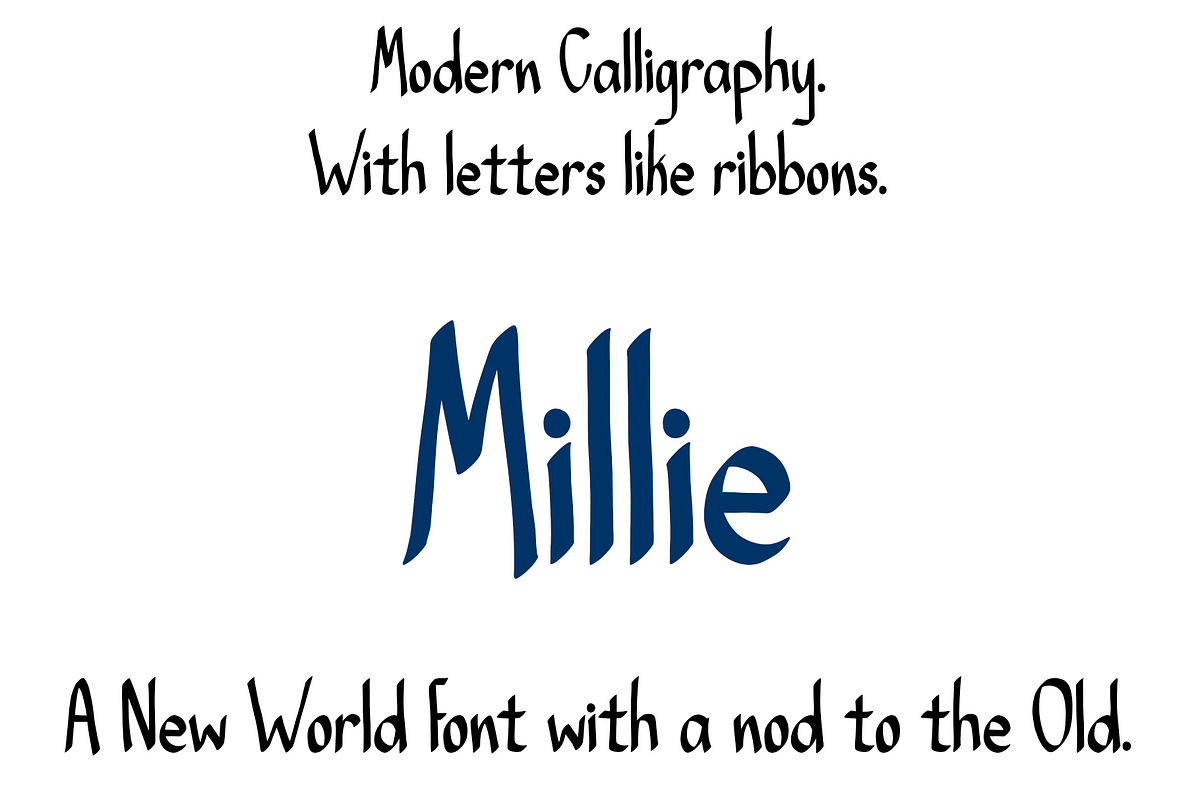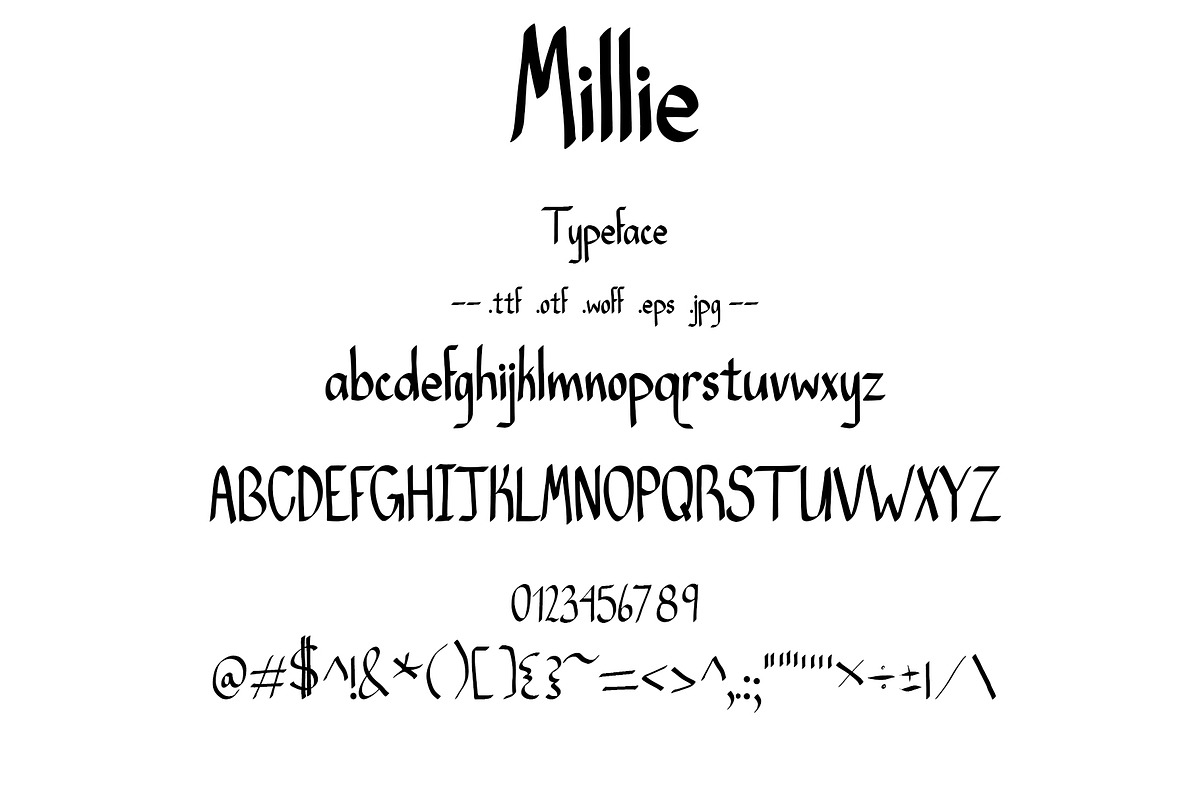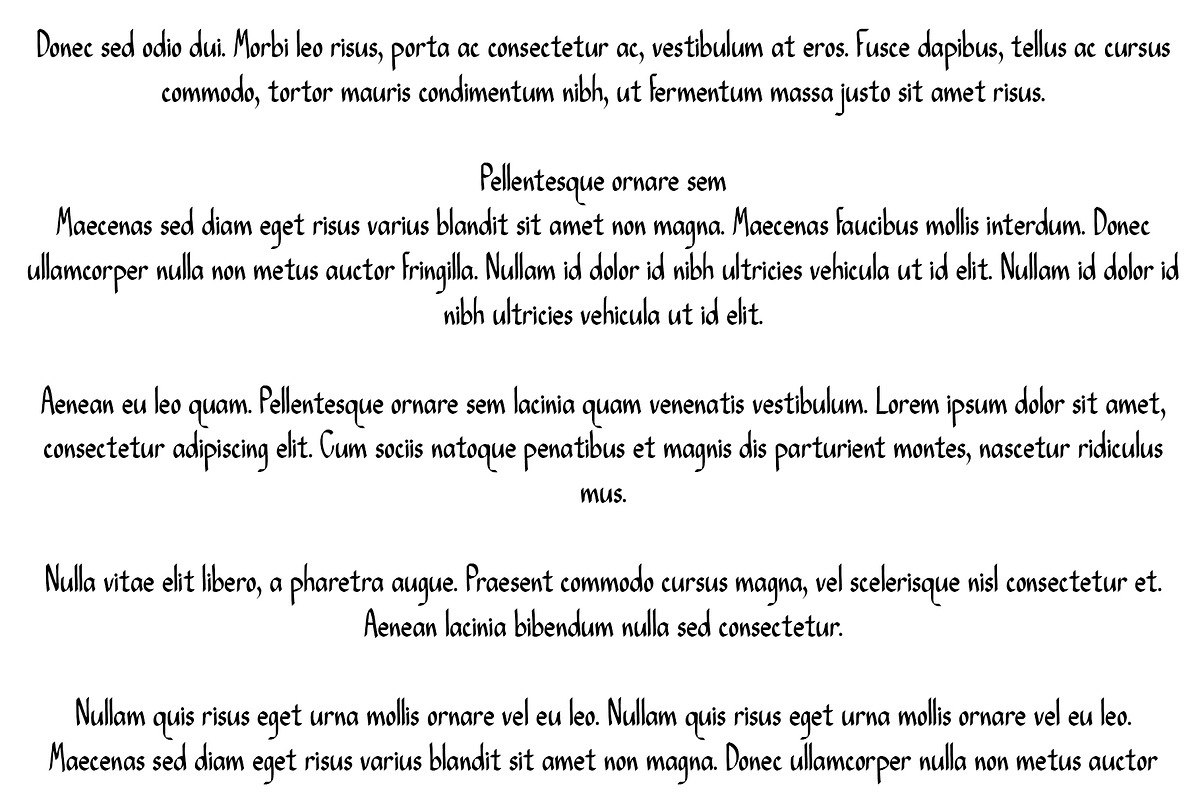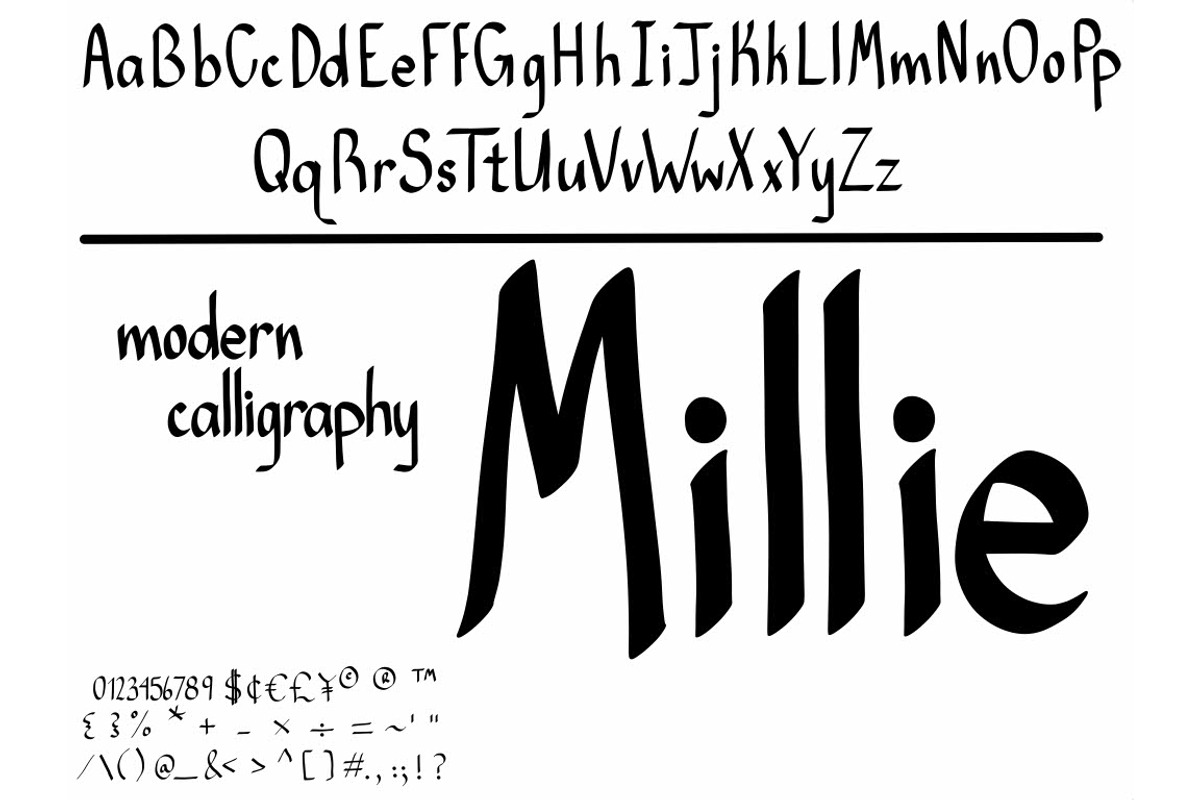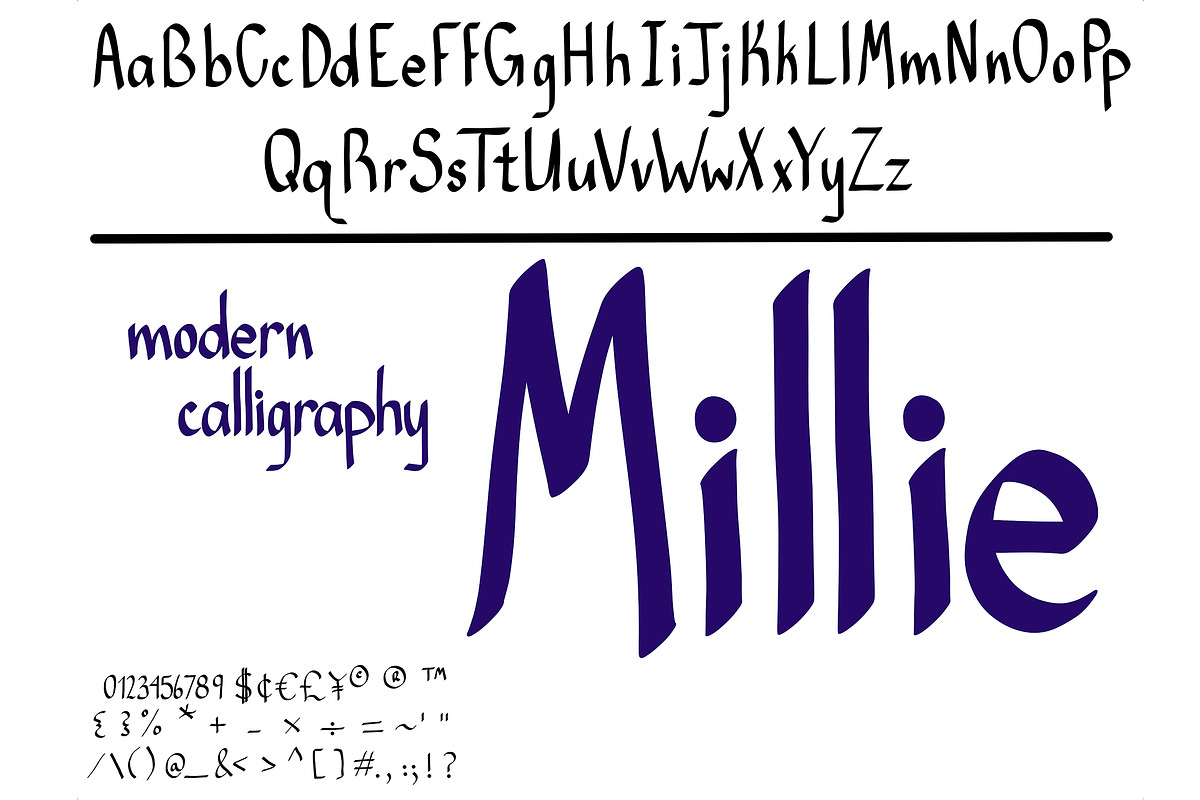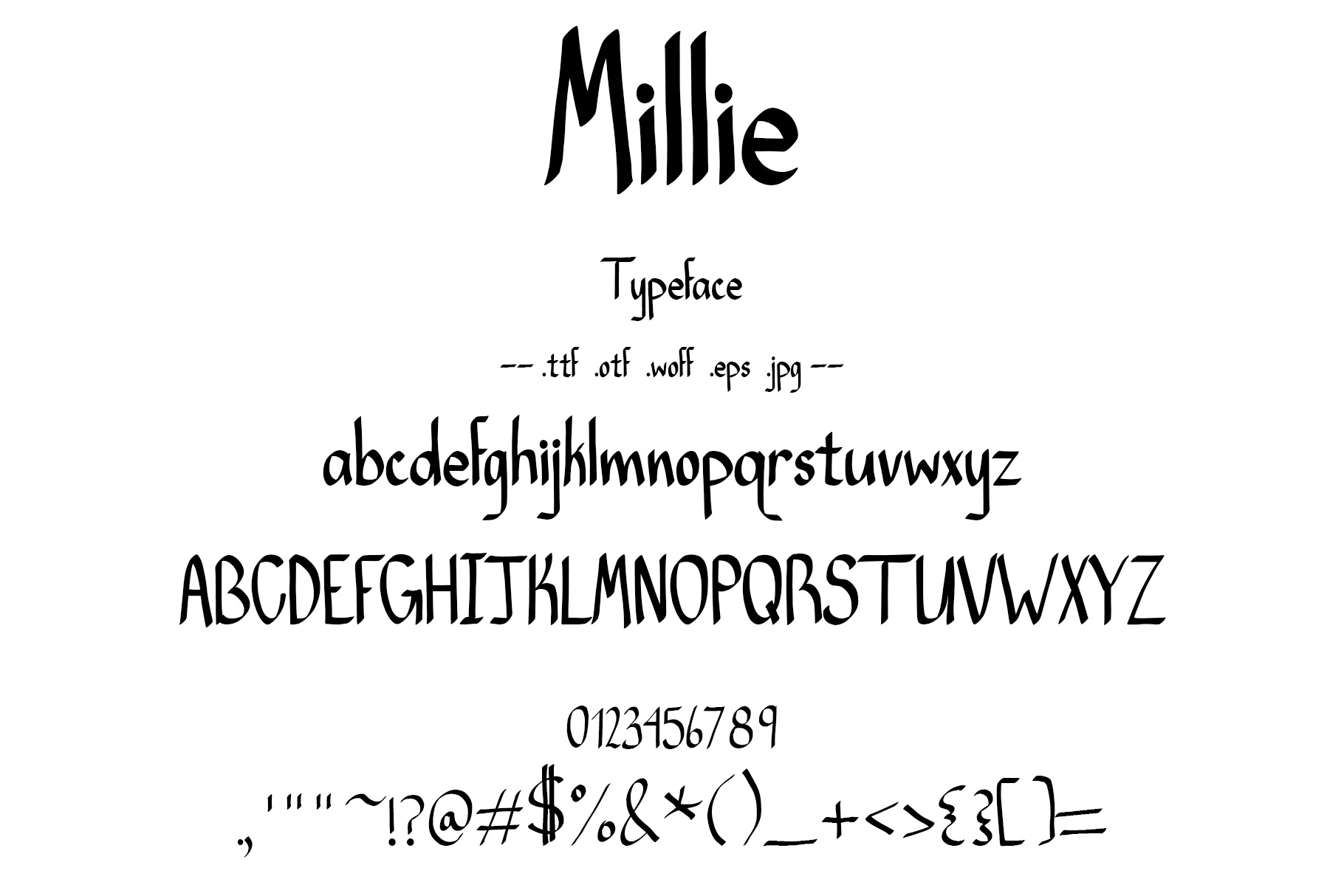
Font Millie. Modern Calligraphy.
Hand drawn font. Millie is a modern calligraphy character set with some old fashioned flare. A contemporary spin on traditional calligraphy.